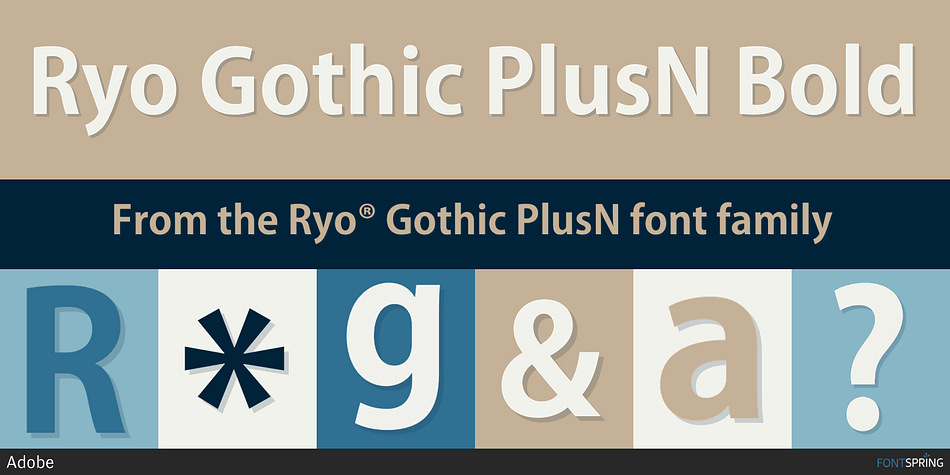
Ryo Gothic PlusN Bold
Ryo® Gothic PlusN is a sans serif font family. This typeface has seven styles and was published by Adobe.
In addition to the kana characters that used to be supported by Ryo Gothic, a full-set of Adobe-Japan1-3 characters of Kozuka Gothic(R) was added and Ryo Gothic became a Std OpenType font.*1
Like the former version of Ryo Gothic, Ryo Gothic PlusN can be used, combined with other full-set Mincho typefaces, but now it’s possible to use it as a stand-alone Japanese font.*2
Created by Adobe type designer Ryoko Nishizuka, the typeface has a bright and speedy calligraphic touch and can be used to compose readable body text, as it gives a calm and well-controlled color to the typeset page. This typeface family is available in seven weights—extra light, light, regular, medium, bold, heavy, and ultra heavy.Ryo Gothic is an OpenType font supporting the Adobe-Japan1-3 Character Collection. We recommend you to use the Composite Font tool of InDesign’s Japanese edition to easily combine Ryo Gothic Text PlusN with other typefaces.
—1 In addition to the Adobe-Japan1-3 characters, Ryo Gothic PlusN has the Printing Standard Glyphs defined by the National Language Council.
—2 For the kanji, numbers, Latin alphabet and other characters (namely, characters other than hiragana, katakana, punctuation marks, “shime” character, sound repeating marks) of the UH (Ultra Heavy) weight of Ryo Gothic PlusN, the design of Kozuka Gothic H (Heavy) is used. The strokewidth of these characters do not match that of Ryo Gothic PlusN UH (Ultra Heavy). This is because Ryo Gothic PlusN’s family of weights is designed to fit various different full-set Japanese typefaces, and Kozuka Gothic’s family does not have a matching weight to the Ultra Heavy weight of Ryo Gothic PlusN. We recommend you to use Ryo Gothic PlusN UH (Ultra Heavy) by combine it with other Japanese typefaces, so that the kana weight can match that of other characters.